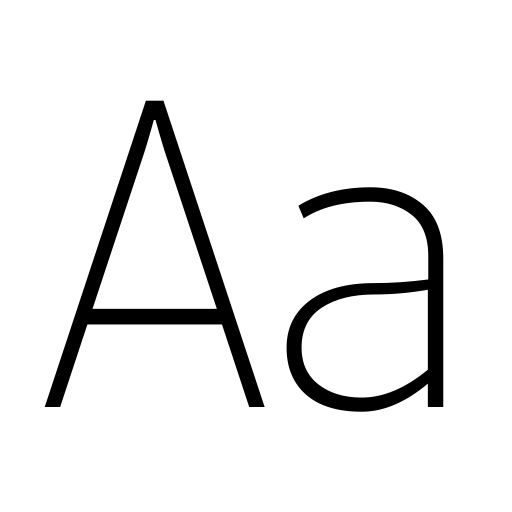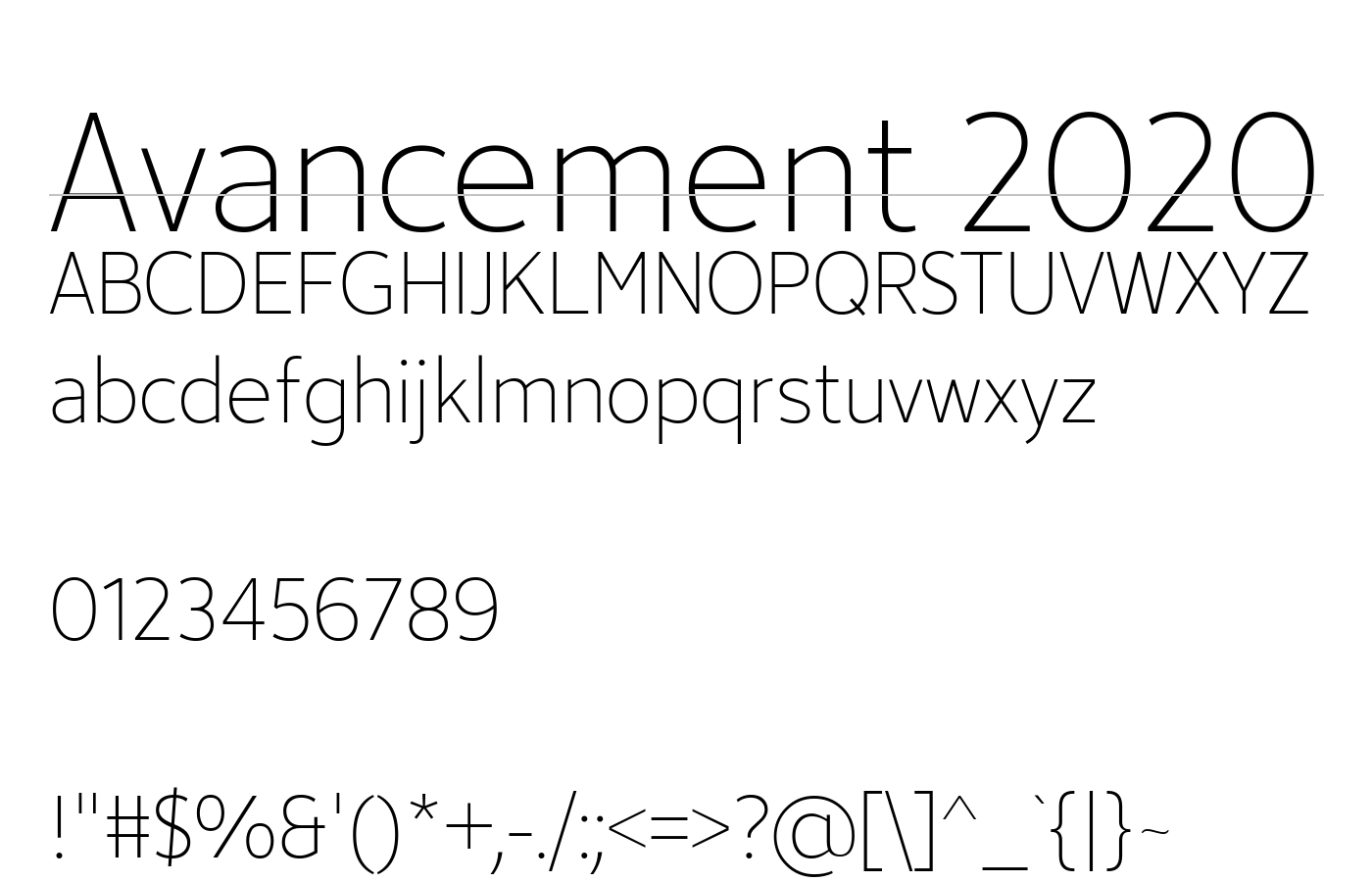
Avancement 2020 is a sleek, modern sans serif font characterized by its thin, clean lines and high x-height, creating a light and elegant appearance. Its narrow letterforms and minimal stroke contrast give it a contemporary and sophisticated feel, making it ideal for stylish branding, editorial design, and digital interfaces where clarity and refinement are key. This font works best in headlines and logos where a modern, understated look is desired.
Avancement 2020 Font
About Avancement 2020 Font
| Font family | Avancement 2020 Font |
| Languages supported | Latin, Greek, Cyrillic, Symbols |
| Designer | Dan P. Lyons |